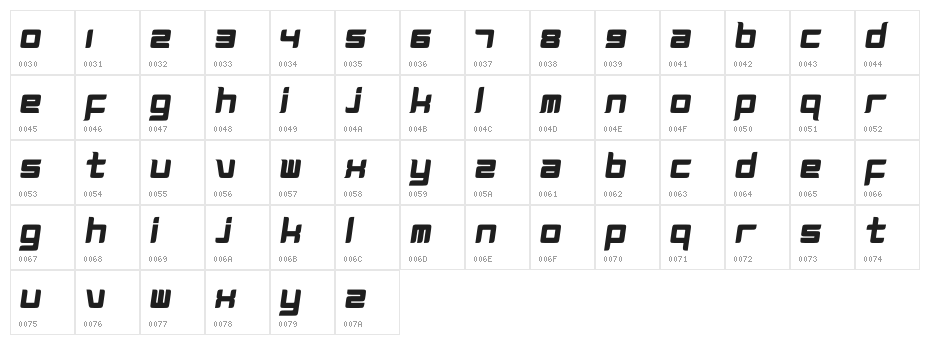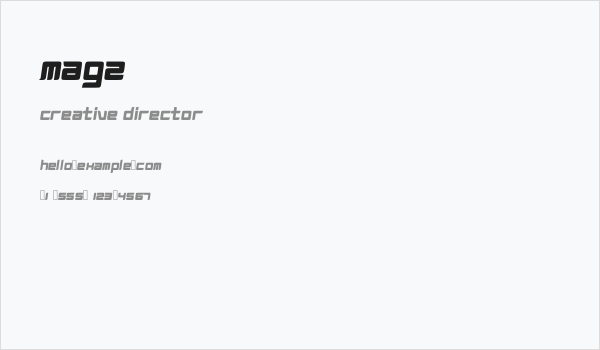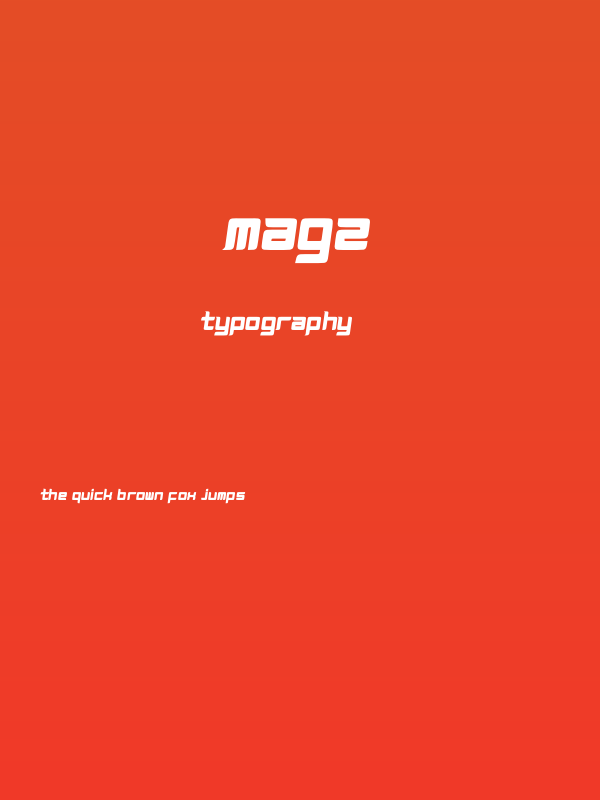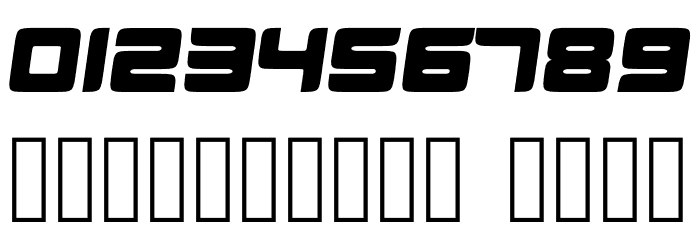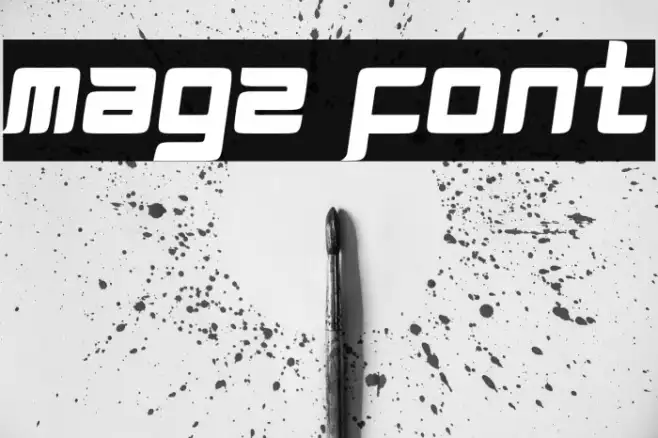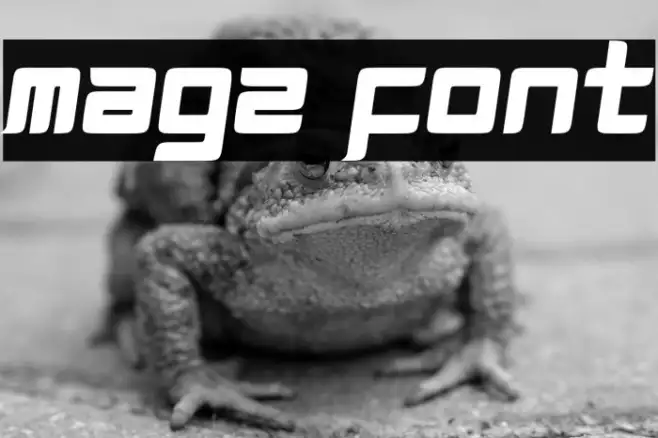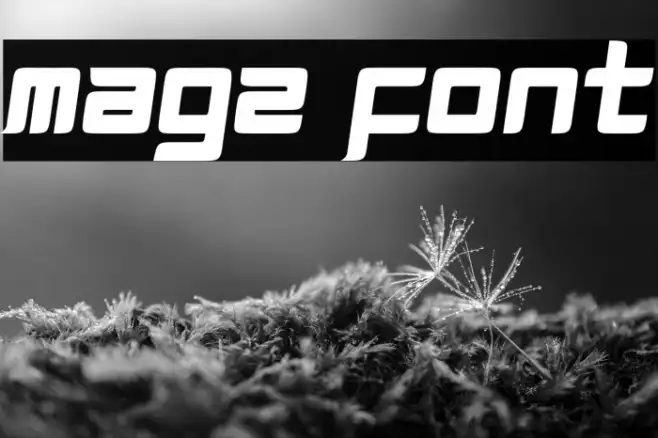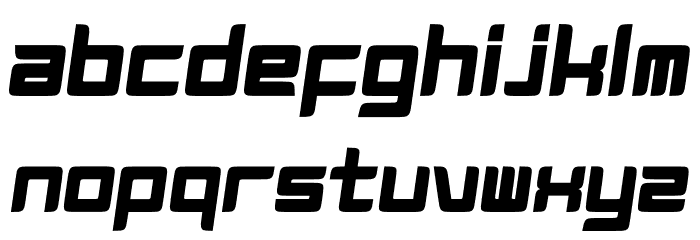
Magz Font
This font features a modern and sleek design with a futuristic touch. The characters are bold and slightly condensed, giving a strong and impactful appearance. The angular cuts and geometric shapes add a dynamic and tech-inspired feel. The uppercase and lowercase letters maintain a consistent style, with smooth curves and sharp edges. The numerals are distinct and easy to read, complementing the overall aesthetic. Special characters are designed with the same attention to detail, ensuring uniformity across all glyphs. This font is ideal for projects that require a contemporary and edgy look.